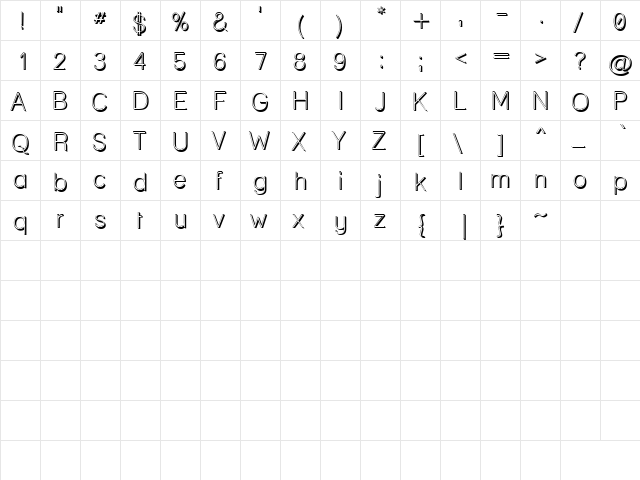
Lane Posh Light Regular
Design Context for Lane Posh Light Typeface
Lane Posh Light is a composed and adaptable typeface that performs quietly and consistently across a wide range of design contexts. Its slender proportions lend an understated elegance to any composition.